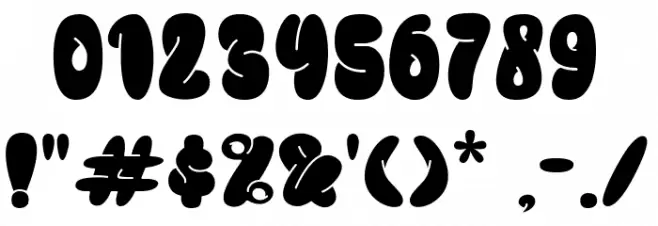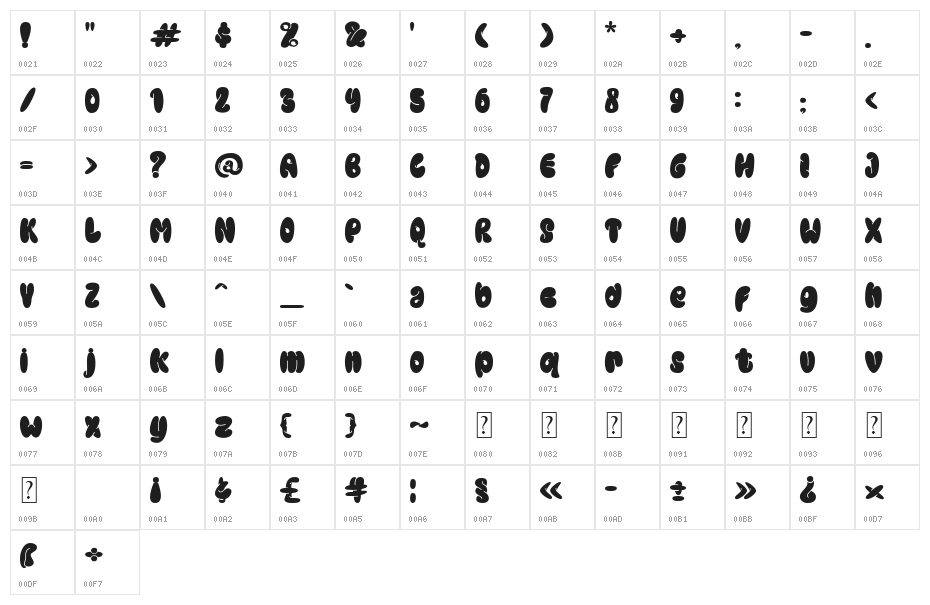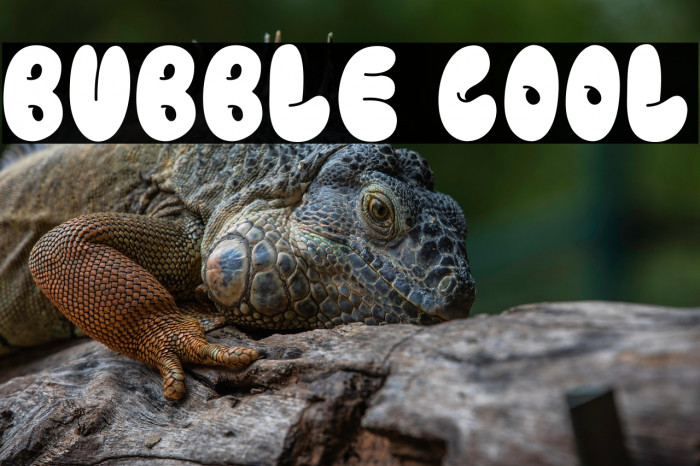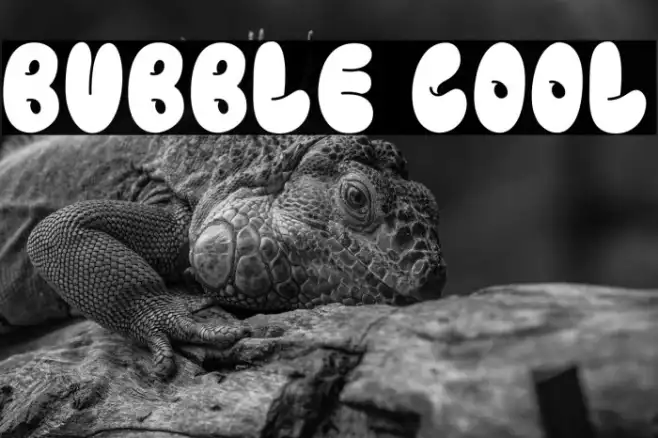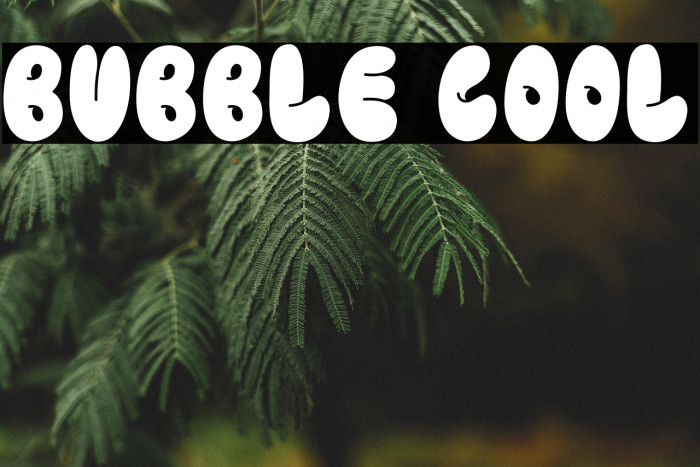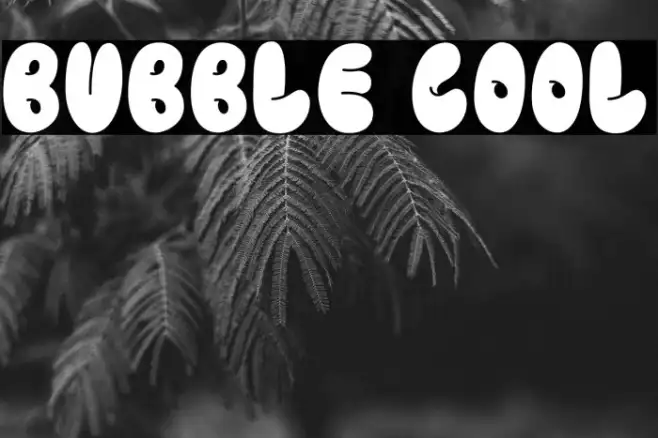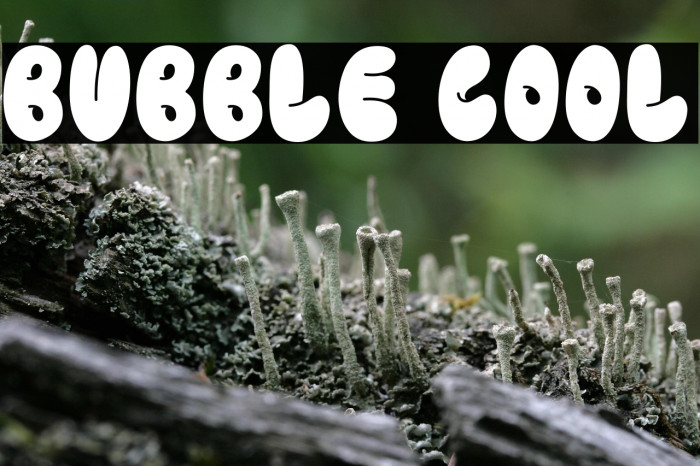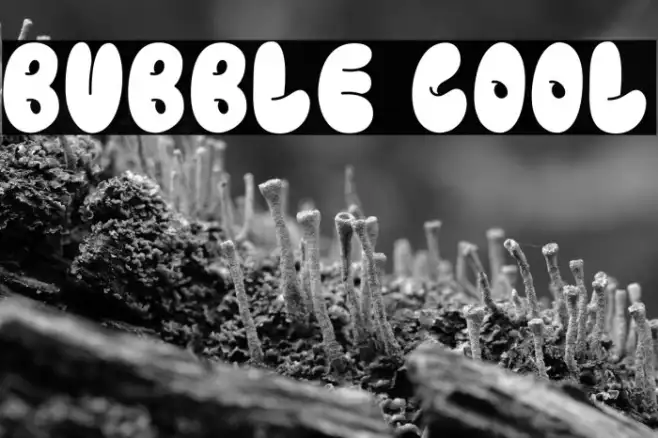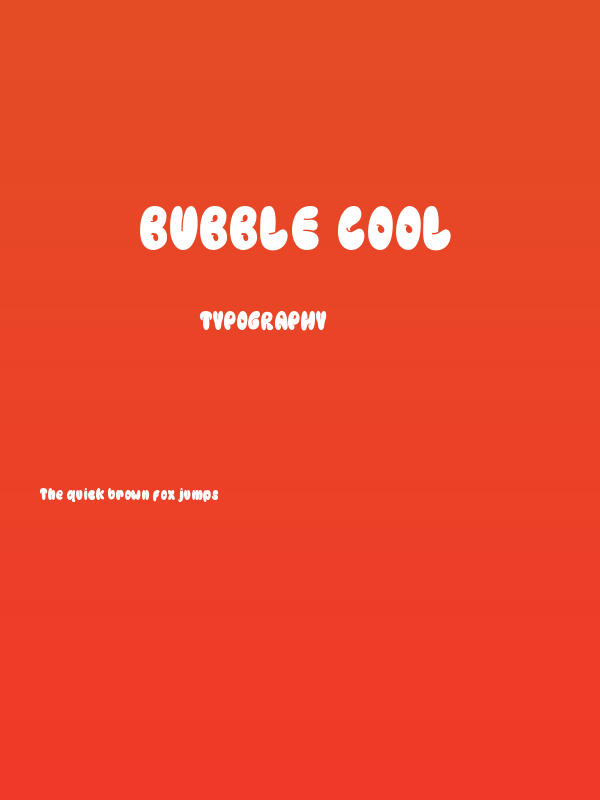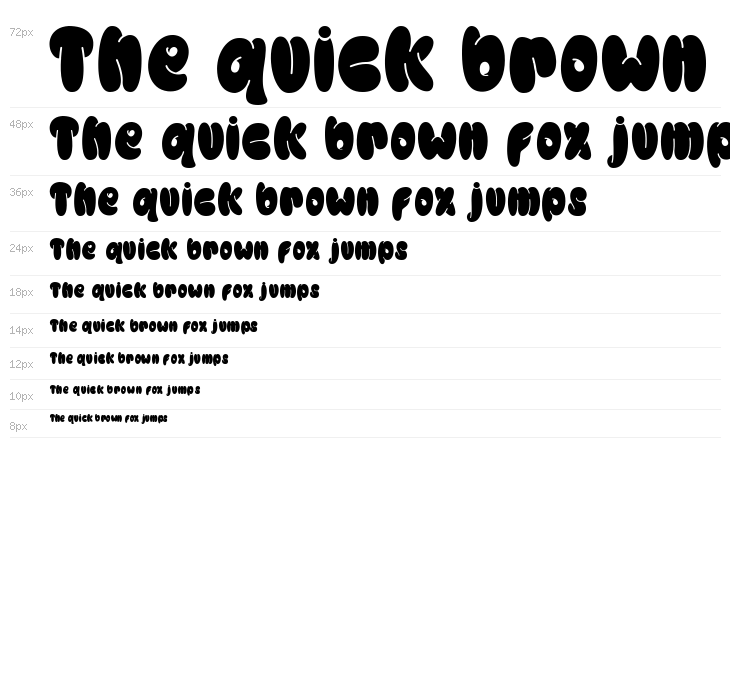
BUBBLE COOL Font
| Overall Style | Playful, Whimsical |
| Use Case | Logos, Headlines, Posters |
| Proposed Projects | Children's books, playful branding, party invitations. |